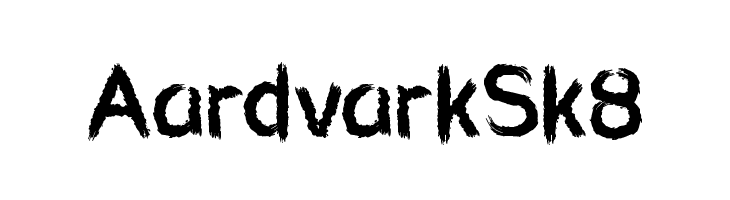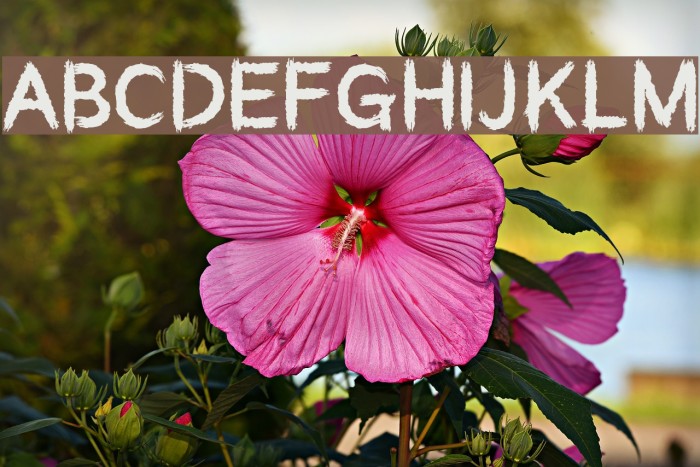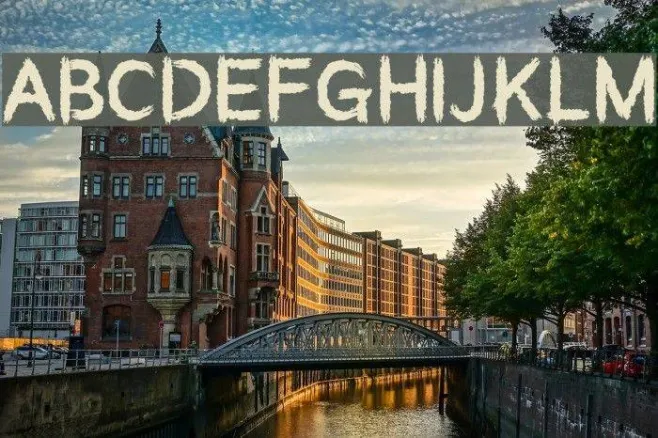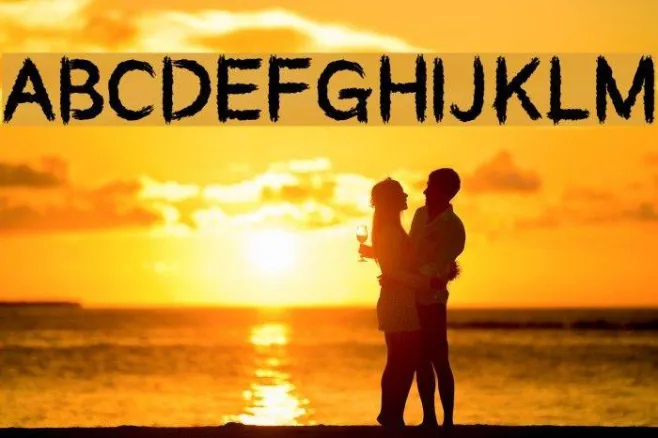
AardvarkSk8 Font
This font features a bold, brush-like texture that gives it a dynamic and energetic appearance. The strokes are uneven and rough, creating a sense of movement and spontaneity. Each character appears hand-drawn, with varying thicknesses that add to its artistic flair. The uppercase and lowercase letters maintain a consistent style, while the numerals and special characters complement the overall design. This font is ideal for projects that require a bold statement or a creative touch, such as posters, headlines, or branding materials.
A bold, brush-textured font with a dynamic and artistic style.
• Proposed Projects: Ideal for posters, headlines, branding, and creative projects requiring a bold statement.